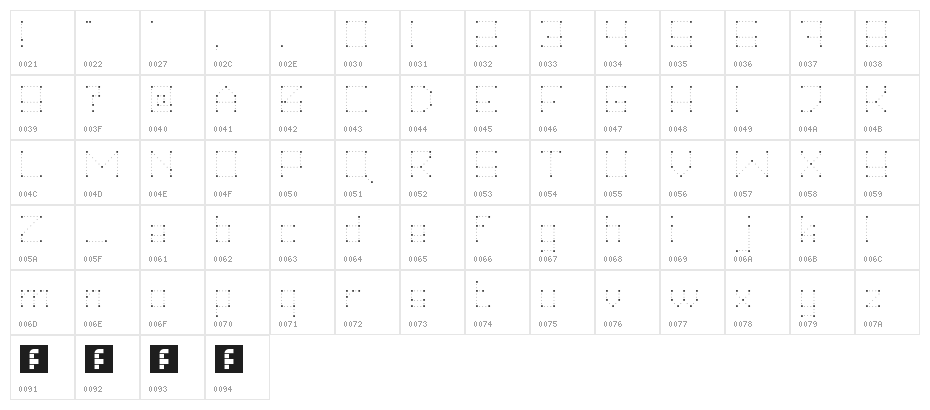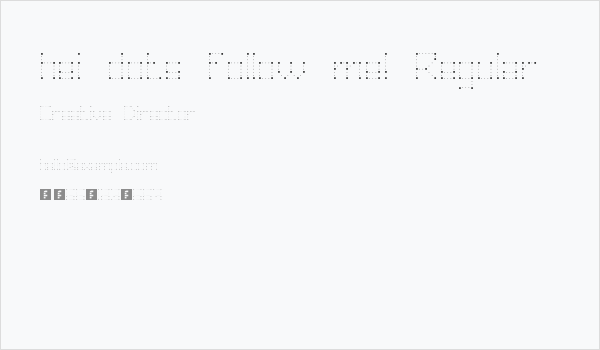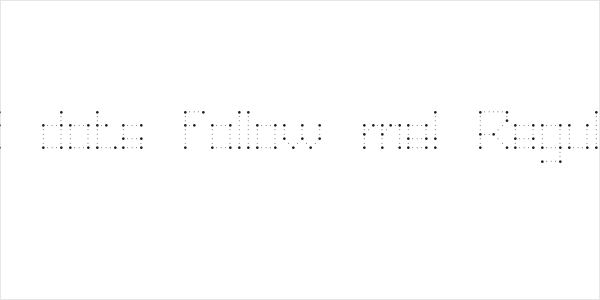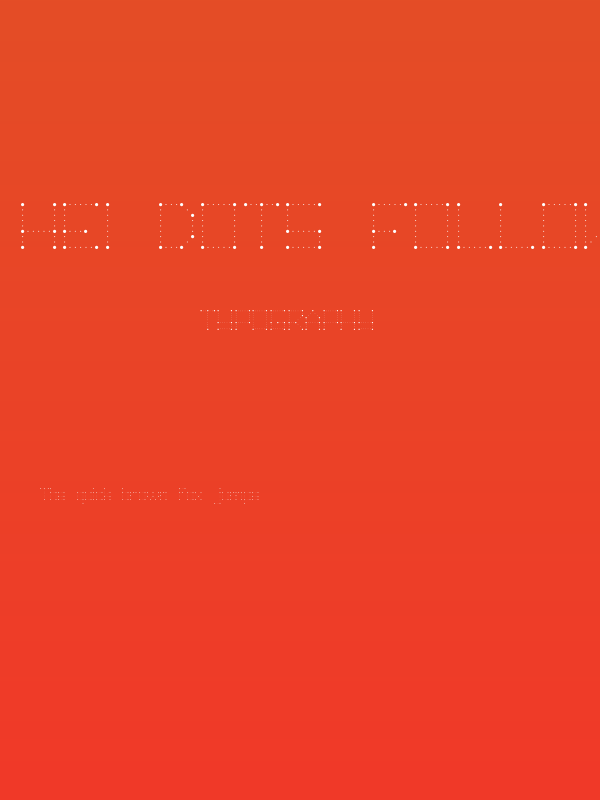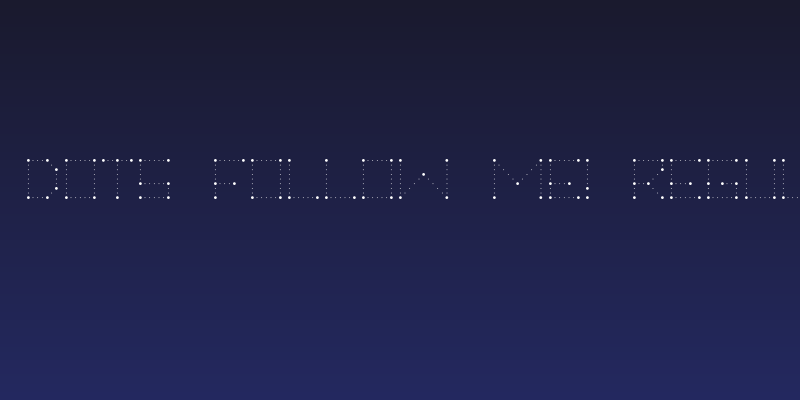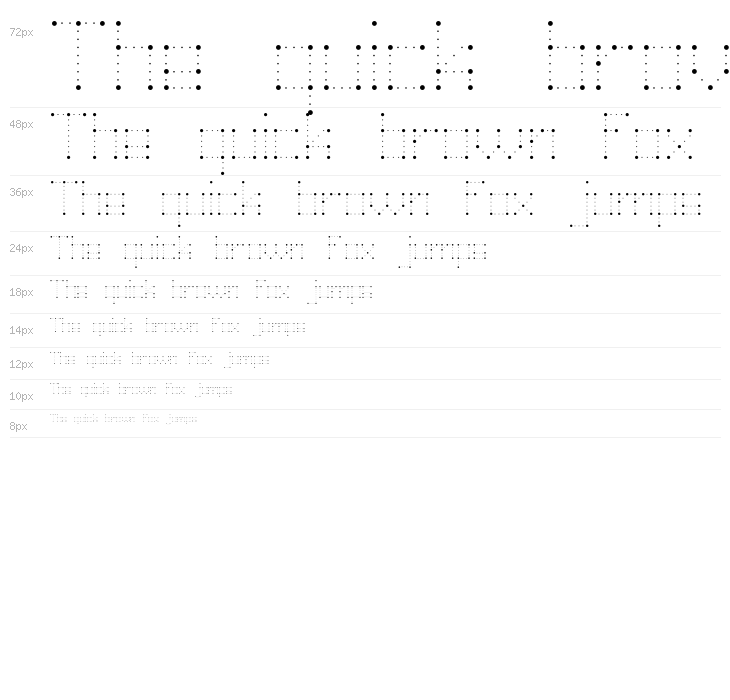
hei dots follow me! Regular Font
hei dots follow me! Regular Description
This font features a unique dotted design, where each character is composed of a series of dots forming the outlines of letters and numbers. The style is geometric and minimalistic, giving it a modern and playful appearance. The uniform dot spacing creates a consistent and rhythmic pattern across all characters, making it visually appealing for creative projects. The font maintains legibility despite its unconventional structure, making it suitable for both artistic and functional uses. Its distinctive look can add a touch of whimsy and innovation to any design.
| Use Case | Logos, Posters, Digital Art |
| Proposed Projects | Ideal for creative projects such as posters, logos, and digital art where a modern and playful touch is desired. |